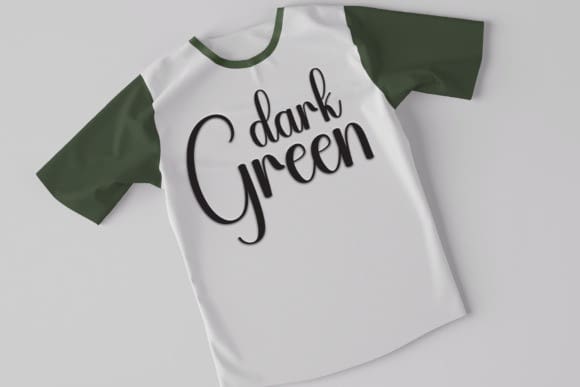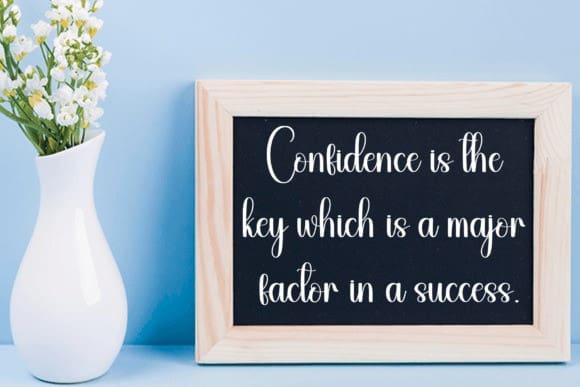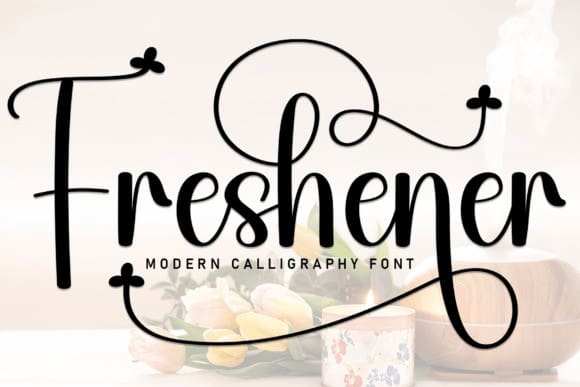
Freshener Script Font
Freshener Script Font – This is a sweet and friendly handwritten font. Cute and fun, this font is ideal for writing wedding invitations, cards, or any other design that might need a fun touch!